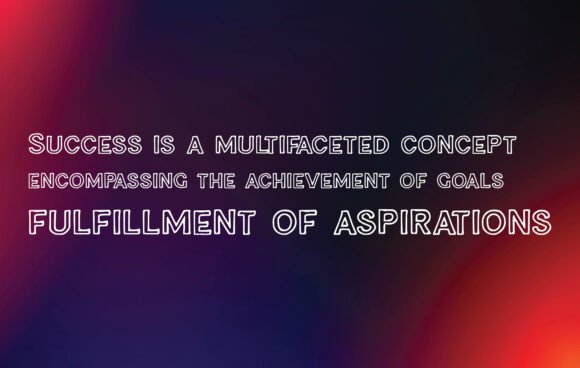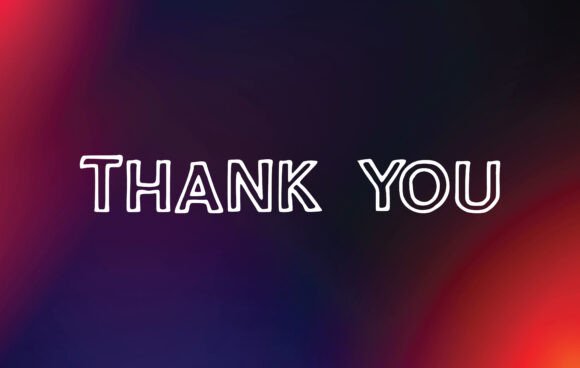
The Perfect Brush for Your Creative Masterpiece
Have you ever been in the midst of brainstorming a new project, and suddenly a spark of inspiration hits you? The ideas start flowing, and you can’t wait to bring them to life. For designers, this moment is a dream come true. It’s the perfect time to unleash your creativity and let your imagination run wild.
That’s where the Brayan Font comes in – a beautiful, handwritten font that can elevate your creative ideas to new heights. This versatile font is not just a tool, but a key to unlocking your full design potential. Whether you’re working on a logo, branding, or quote, Brayan Font is the perfect choice to make your design stand out from the crowd.
As a designer, you understand the importance of having the right tools at your disposal. Brayan Font is a valuable addition to any design arsenal, offering a unique and eye-catching look that will leave a lasting impression on your audience.
Brayan Font Key Features
- Font Family: Brayan Font is a sans-serif font family designed for digital use.
- Character Set: Brayan Font supports a wide range of languages, including Latin, Cyrillic, and Greek alphabets.
- Font Size: Brayan Font is available in 7 different weights, ranging from Light to Black, with corresponding font sizes:
- Light: 300 (10.5pt)
- Regular: 400 (12.5pt)
- Medium: 500 (13.5pt)
- Semi Bold: 600 (14.5pt)
- Semi Light: 300 (10.5pt)
- Black: 900 (18.5pt)
- Resolution: Brayan Font is optimized for use at high resolutions, making it suitable for digital displays and print media.
- Unique Characteristics: Brayan Font features a clean and modern design, with subtle rounded edges and a high x-height, making it highly legible and suitable for a wide range of applications.
Brayan Font Review
I recently had the chance to work with the Brayan Font, and I have to say, it’s a mixed bag. On the one hand, there are some things that really work well. ✨ The font’s rounded edges give it a friendly, approachable feel that’s perfect for branding and marketing materials. It’s also very versatile, working well in both digital and print formats.
- ✨ Rounded edges give it a friendly, approachable feel
- ✨ Very versatile, working well in both digital and print formats
- ✨ Comes in a range of weights and styles, making it easy to find the perfect fit for your project
However, there are some limitations to consider. ⚠️ The font’s rounded edges can also make it feel a bit soft or weak in certain contexts, which may not be ideal for more formal or professional applications. Additionally, the font’s range of weights and styles, while initially appealing, can also make it feel a bit overwhelming to navigate.
- ⚠️ Rounded edges can make it feel soft or weak in certain contexts
- ⚠️ Range of weights and styles can be overwhelming to navigate
- ⚠️ Limited language support, which may be a concern for multilingual projects
Overall, I would say that the Brayan Font is a solid choice for certain types of projects, but it may not be the best fit for everyone. With a bit of careful consideration and planning, however, it can be a valuable addition to your design toolkit.
Tip: Use the Brayan font for titles and headings to add a touch of elegance to your designs.
Tip: Use the Brayan font for creating custom typography and adding a touch of sophistication to your designs.
Tip: Use the Brayan font for creating professional-looking presentations and documents.
The Brayan font is ideal for:
- Creating elegant titles and headings.
- Adding a touch of sophistication to designs.
- Creating professional-looking presentations and documents.
Alternatives to Brayan Font for Designers
Montserrat is a popular sans-serif font designed by Julieta Ulanovsky. It’s ideal for digital and print media, and is commonly used in logos, headings, and body text. Montserrat is a good alternative to Brayan Font when you need a clean, modern look with a wide range of languages supported.
Montserrat is similar to Brayan Font in its modern and clean design, but has a more geometric feel. It’s also more versatile and comes in a variety of weights and styles.
Yes, Brayan Font is highly suitable for digital products, including mobile apps, websites, and software. It is optimized for digital use and includes features such as ligatures, swashes, and contextual alternates that make it easy to read on screens. Additionally, Brayan Font is designed to